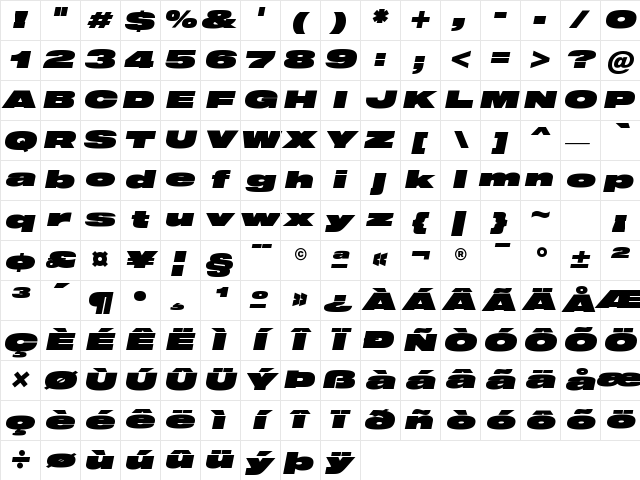
Foundry: OGJ Type Design
Designer: Oliver Jeschke
Design Context for Sequel100Black-116
Sequel100Black-116 is a composed and adaptable typeface that performs quietly and consistently across a wide range of design contexts.